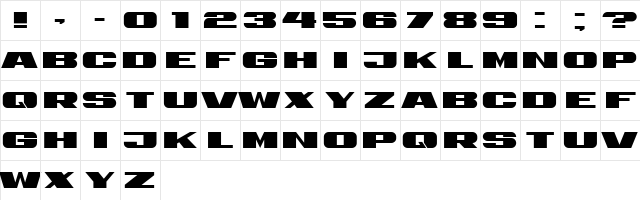
Retrive Regular
Design Context for Retrive Typeface
Retrive offers clean, dependable letterforms without strong stylistic allegiance, making it a practical choice for designers who need flexibility.